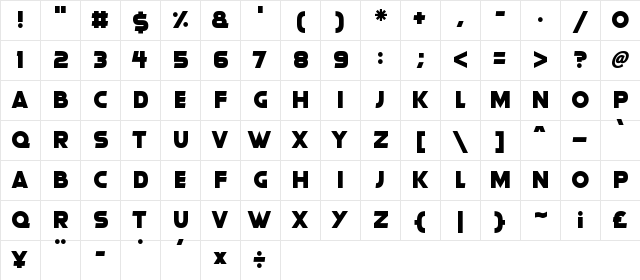
Gorgeous Grafix Regular
Design Context for Gorgeous Grafix Typeface
Gorgeous Grafix offers clean, dependable letterforms without strong stylistic allegiance, making it a practical choice for designers who need flexibility.